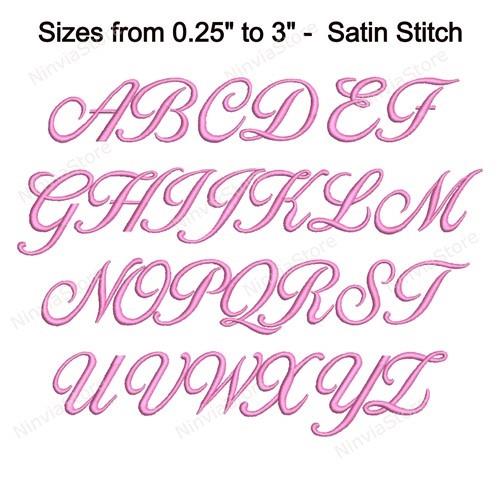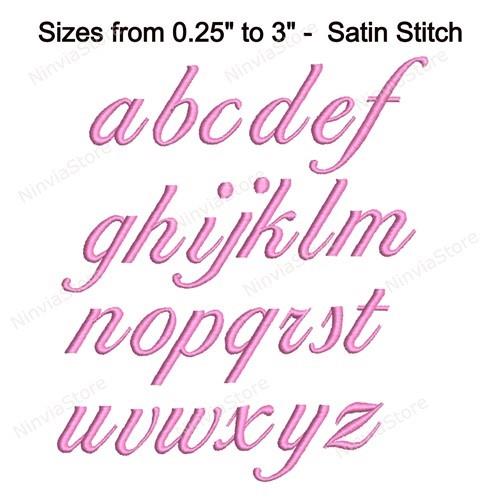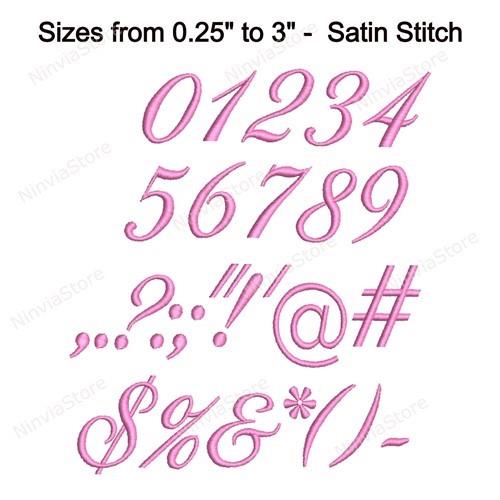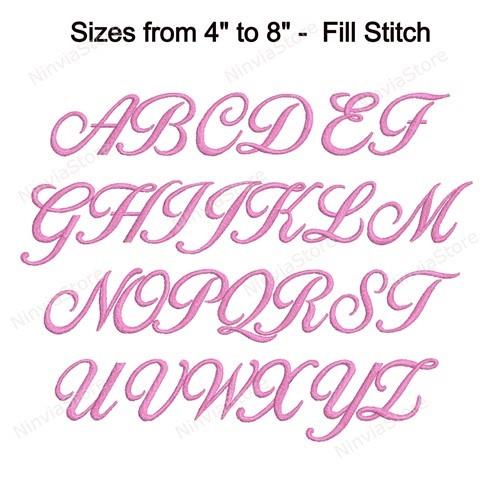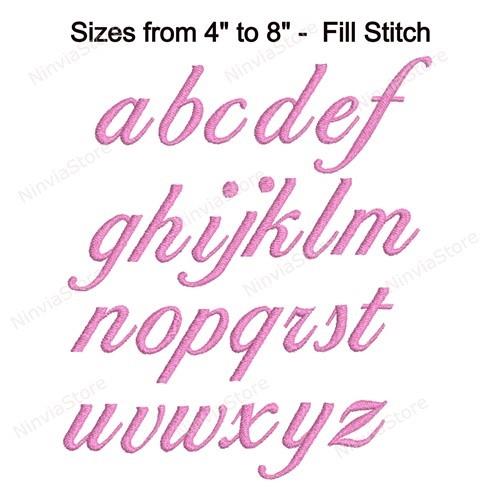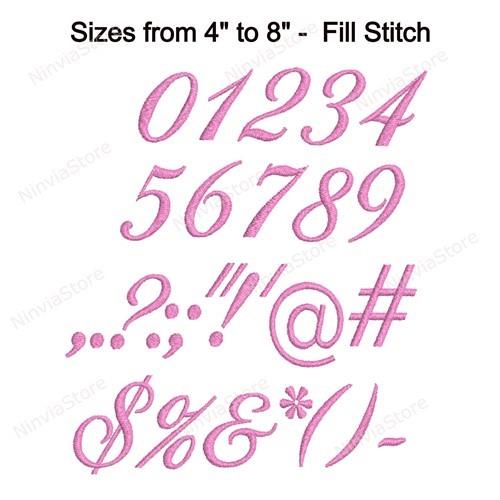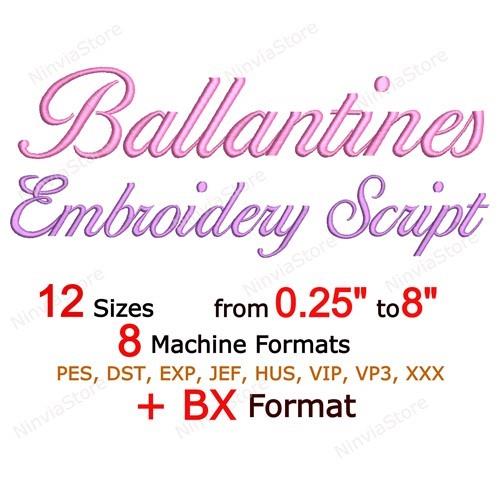
Maya Kreations is happy to present Ballantines Font machine embroidery font which has Flowing script machine embroidery font suitable for personalized items like blankets and home decor. Available in PES, DST, and six other formats for versatile use. included. If you would like to view more embroidery fonts and alphabets please search our embroidery fonts page.